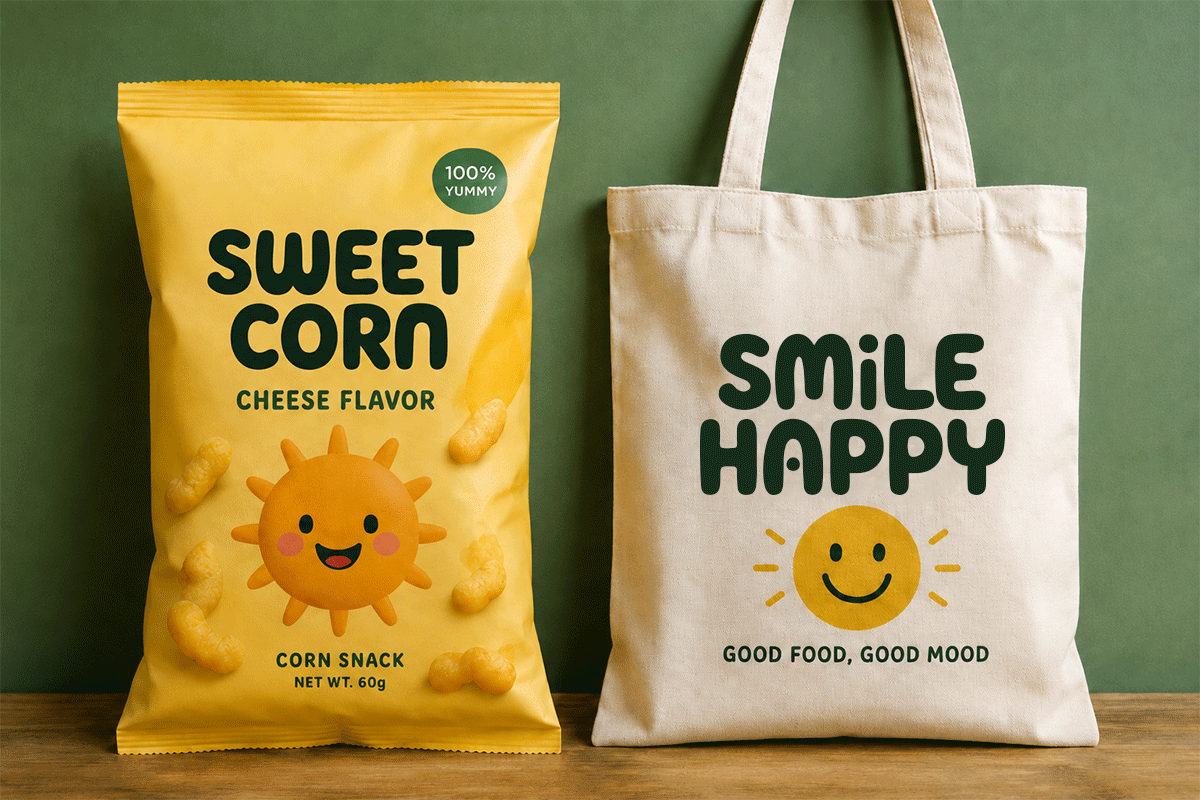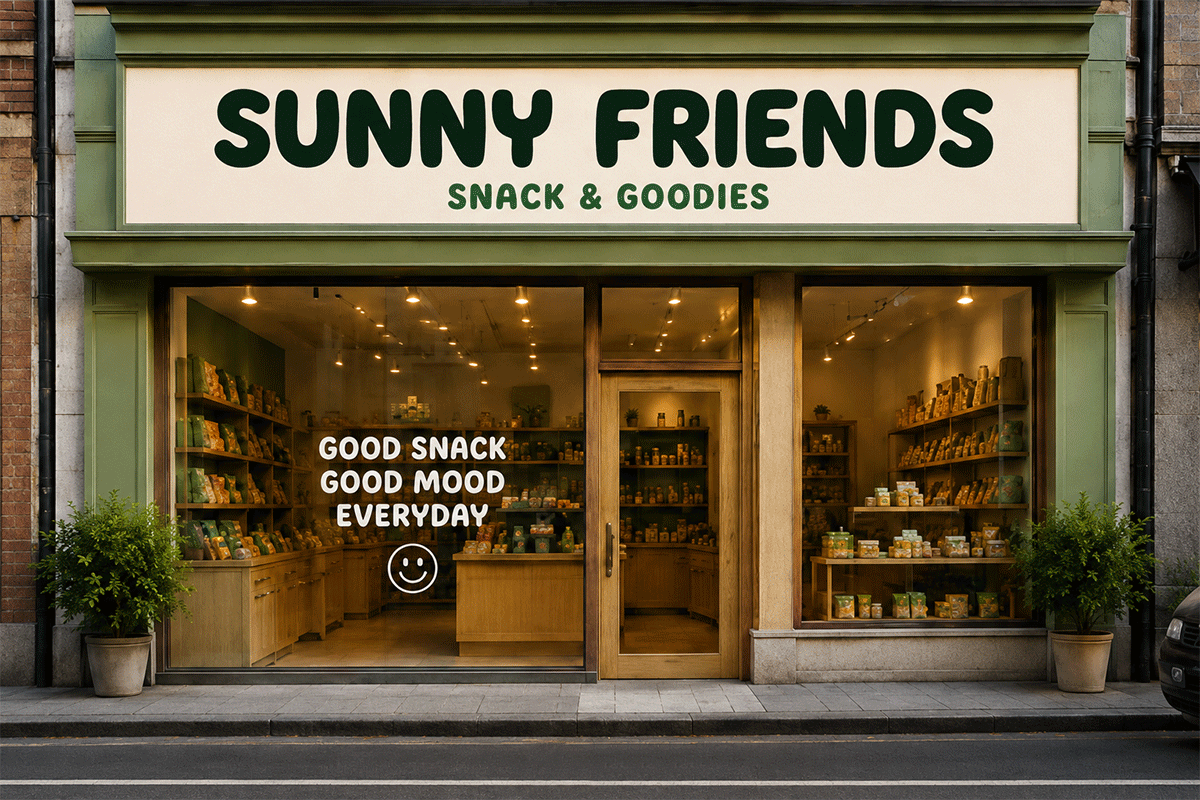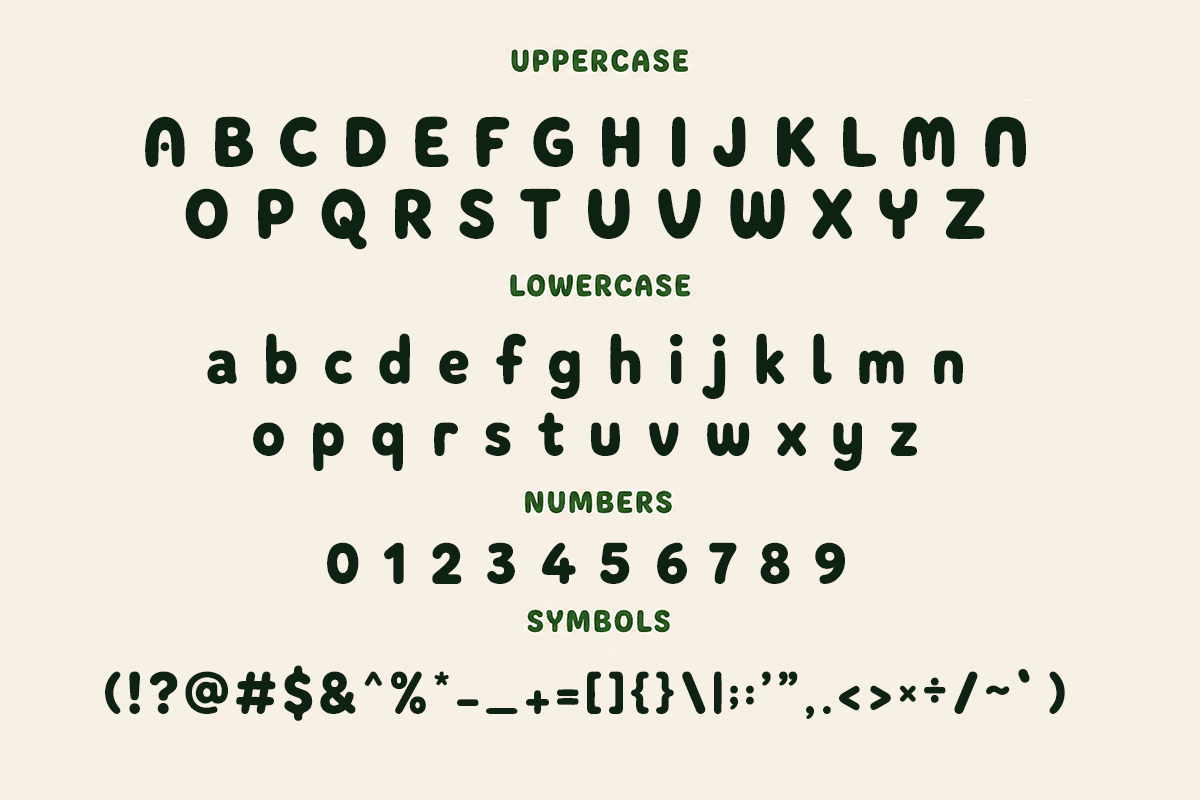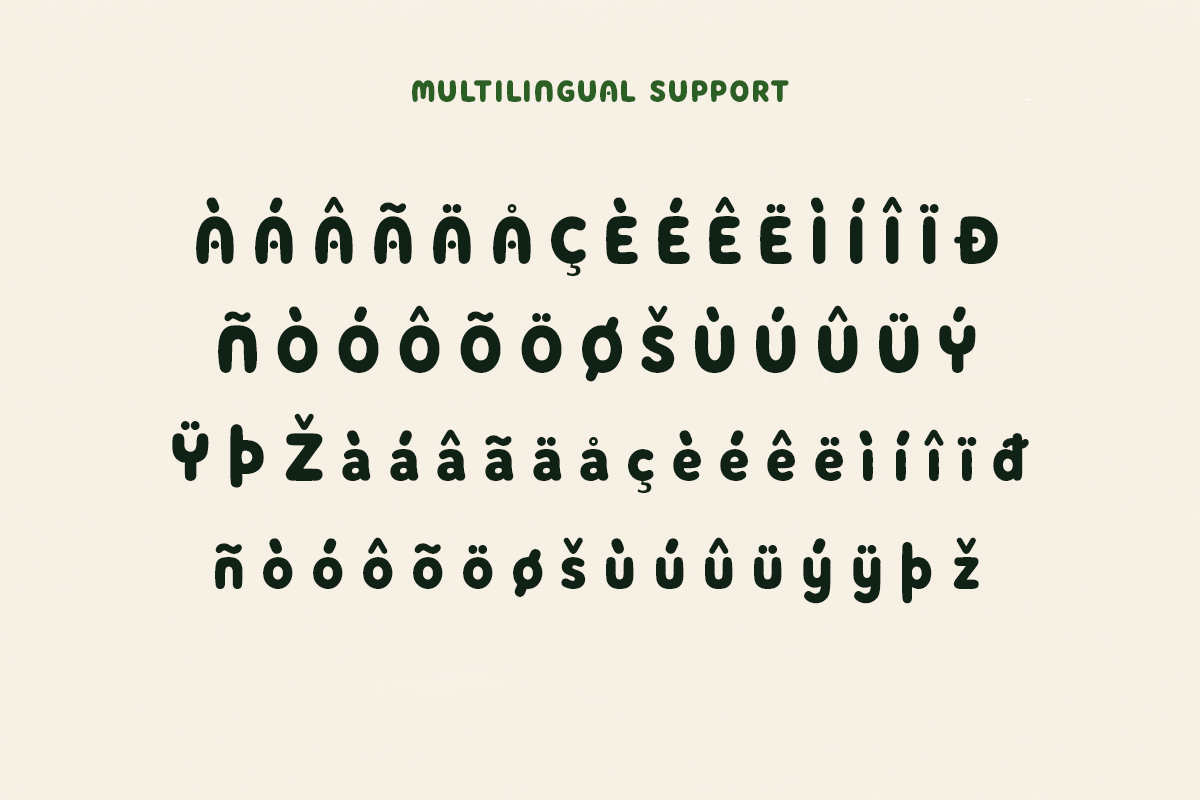
Solvia A Modern Playful Display Font is a playful display font with bold, rounded letterforms and a charmingly quirky personality. Its soft curves, chunky proportions, and subtle irregularities create a friendly visual rhythm that feels modern, cheerful, and instantly approachable.
Designed to make headlines stand out without feeling too serious, Solvia A Modern Playful Display Font combines simplicity, warmth, and playful character. Its clean yet expressive shapes give every word a distinctive personality, making it especially effective for fun and creative branding.
Solvia A Modern Playful Display Font is perfect for logos, packaging, posters, children’s products, food and beverage branding, stickers, social media graphics, T-shirts, book covers, educational materials, and playful editorial designs.
With its cheerful curves and easygoing personality, Solvia A Modern Playful Display Font turns simple words into bold, friendly statements that are hard to forget.